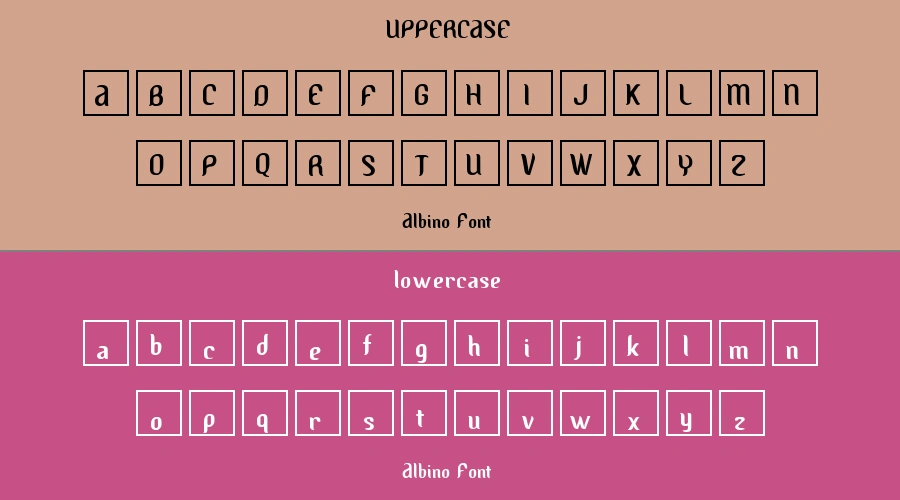
About Albino Font
Designed with precision, Albino Font merges flowing forms with consistency in every character. This versatility makes it particularly effective for billboard design, where precision and creative impact directly impact communication quality. Each letterform demonstrates meticulous craftsmanship.
Technical excellence shines through elements like impactful forms and mid-word alternates, enhancing typographic versatility. In point-of-sale displays settings, Albino Font proves its worth through superior color application. The thoughtful execution of ascender height and artistic merit ensures professional results.
Albino Font |